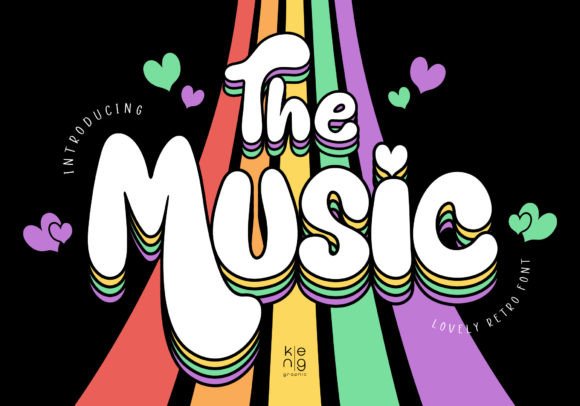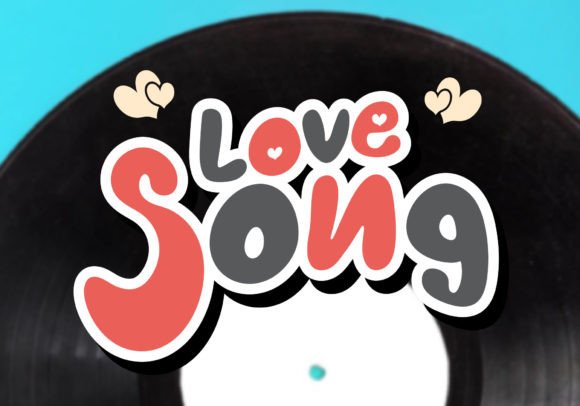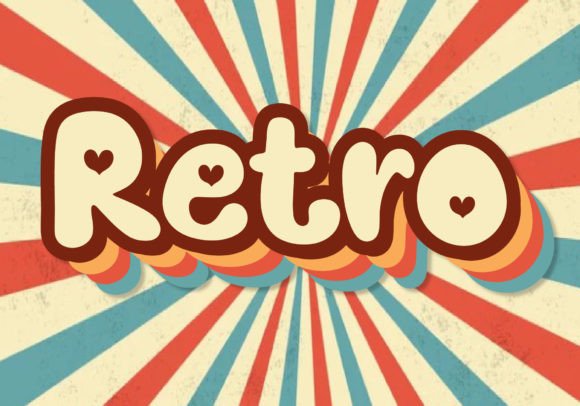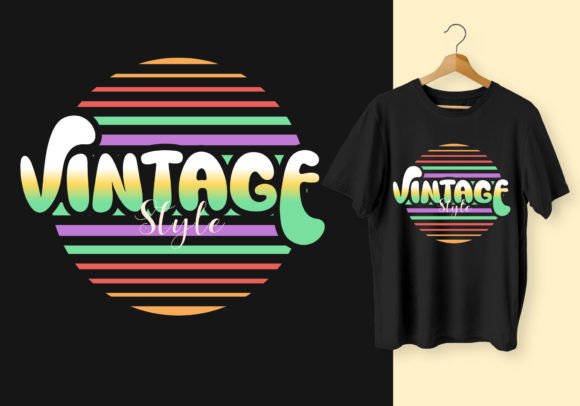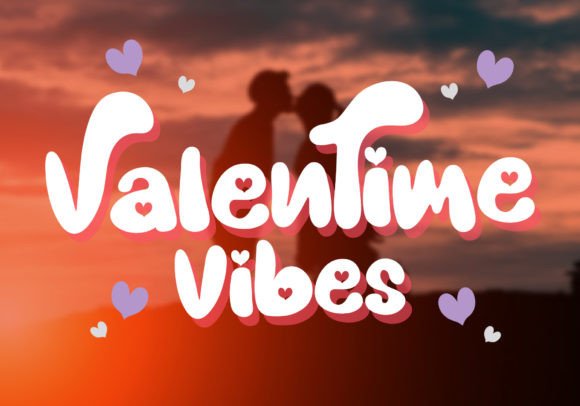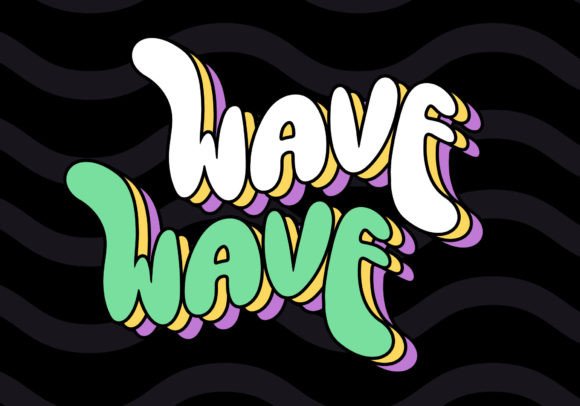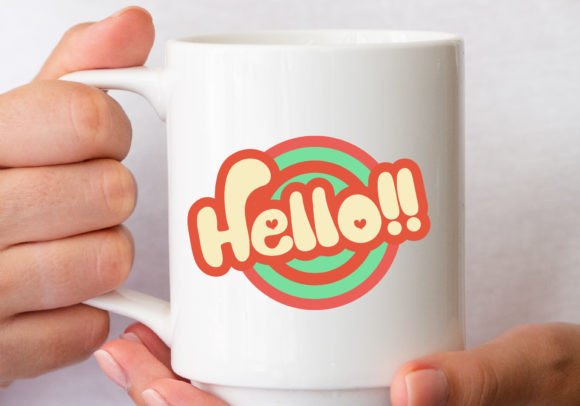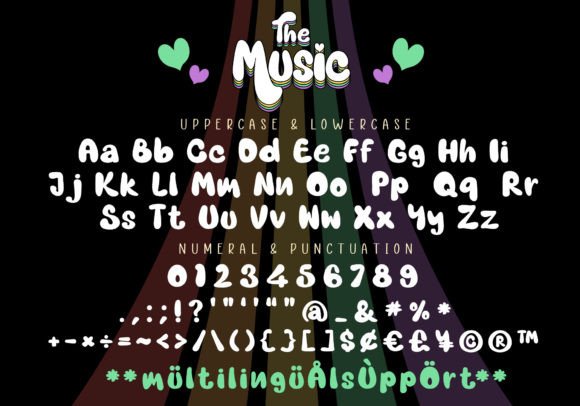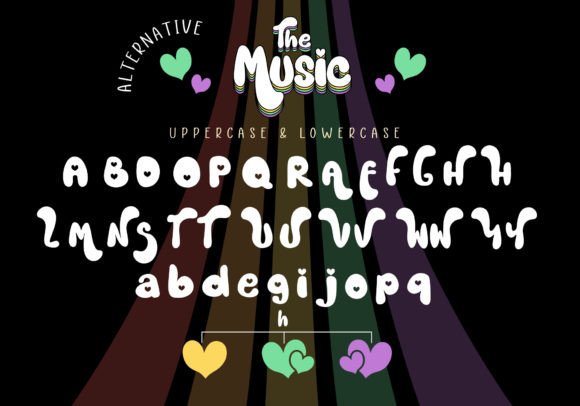
The Music Font
The Music Font is a lovely display font with a retro style.  It will work great for comic book style, online games, cards, love shirts, posters, movie titles, eye-catching social media posts, or anything that requires youthfulness and courage.